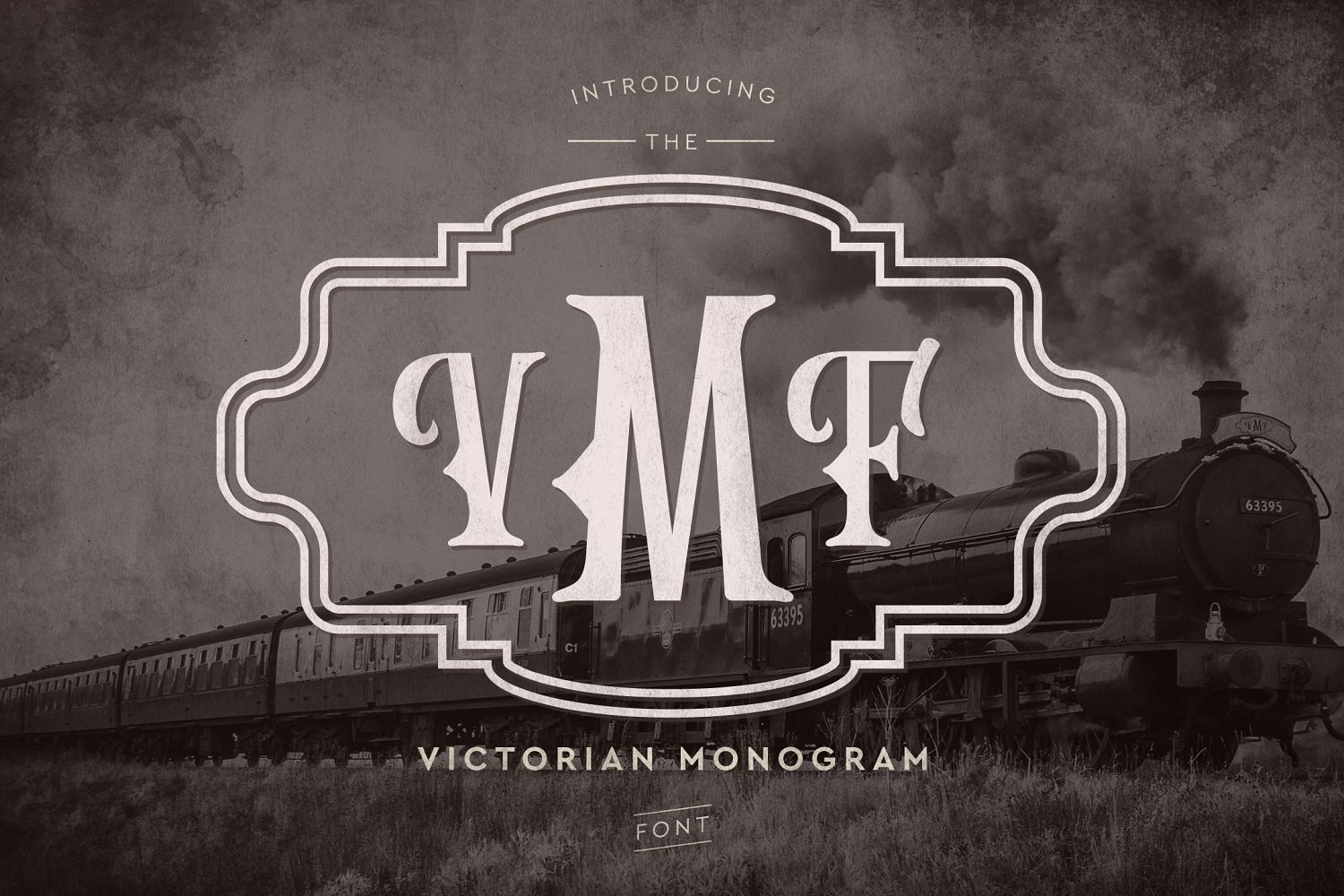
Victorian Monogram Font
Victorian Monogram Font is a vintage font which allows you to create those Victorian Style Monograms. With the vintage font and alternative frames, you can create the perfect monogram. Also included are 2 font files which can be used separately without the frames.